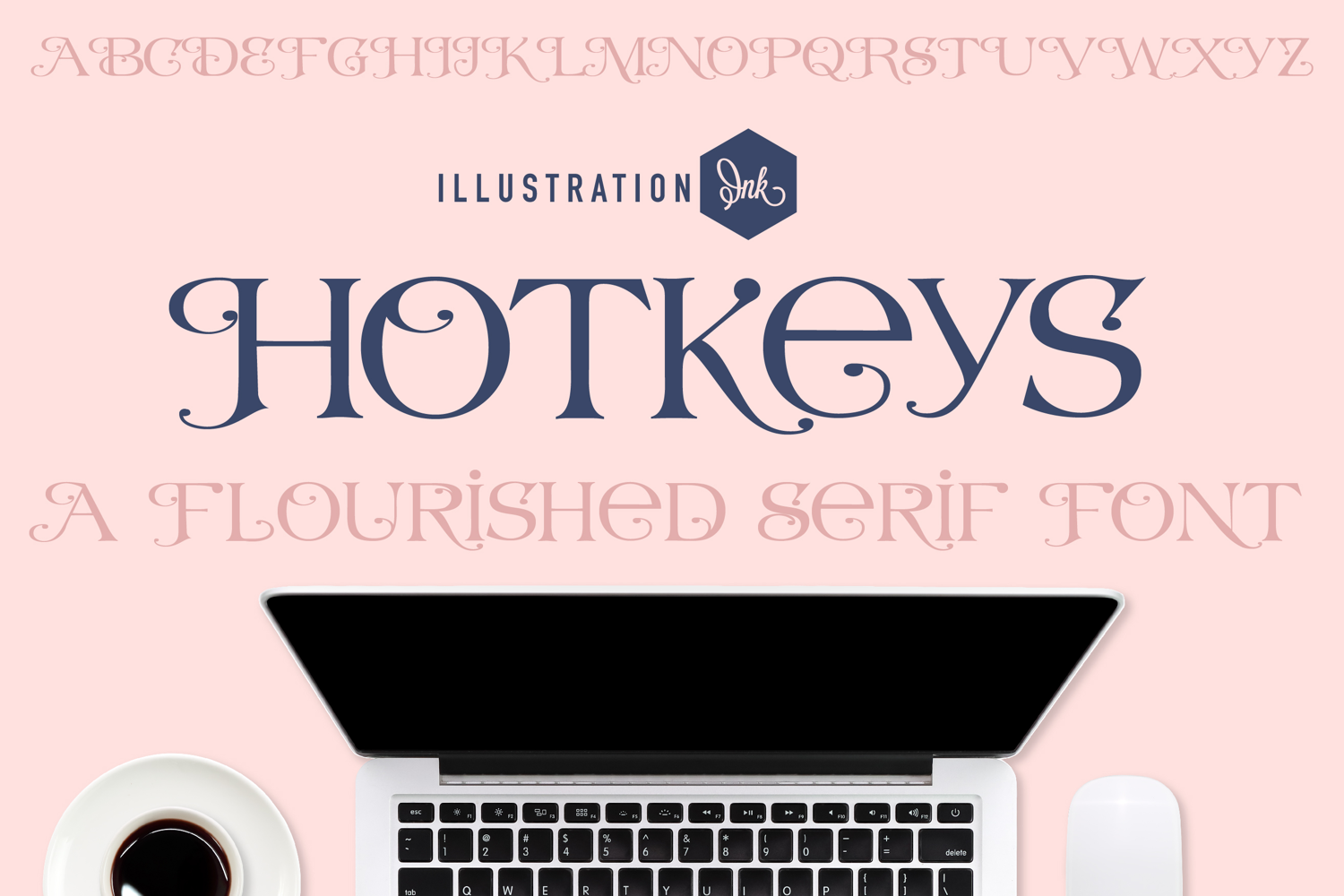
ZP Hotkeys
This hand-crafted font is a pretty serif with flourishes throughout.
• The letters are not perfectly uniform in size or shape.
• There may be slight variations in the spacing between letters and words.
• The font may have a "wiggly" or "squiggly" appearance.
• The font may be difficult to read at small sizes.